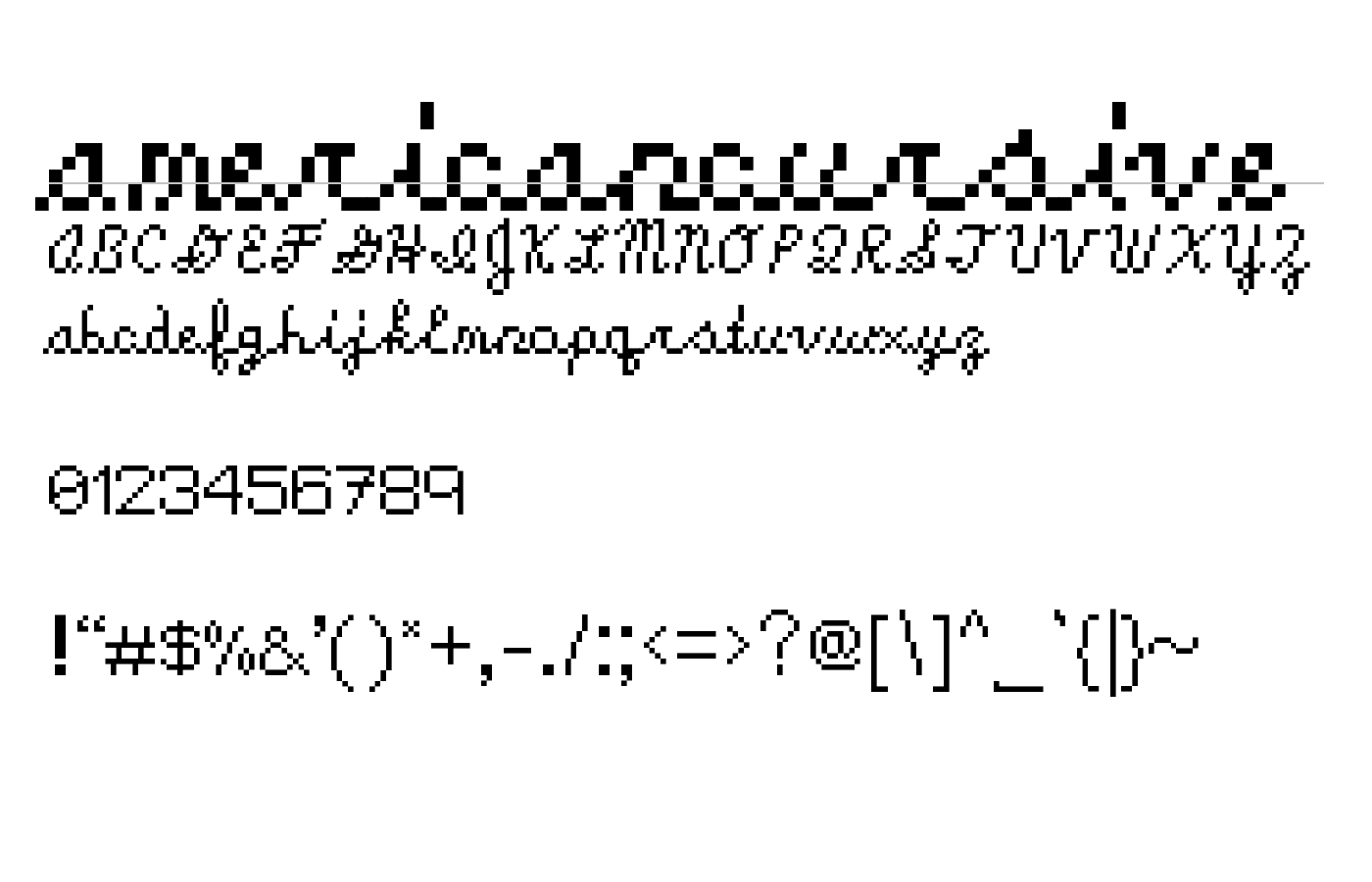
AmericanCursive is a charming script font featuring a delicate, handwritten style with smooth, flowing strokes and a moderate slant. Its consistent weight and moderate contrast make it friendly and readable, ideal for designs that seek a warm, personal touch. This font works beautifully in invitations, greeting cards, and casual branding where an inviting and approachable feel is desired.
americancursive Font
About americancursive Font